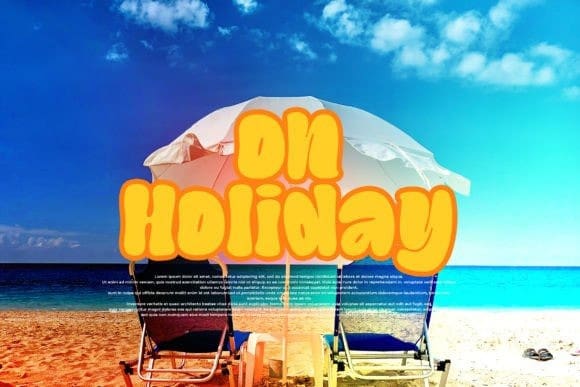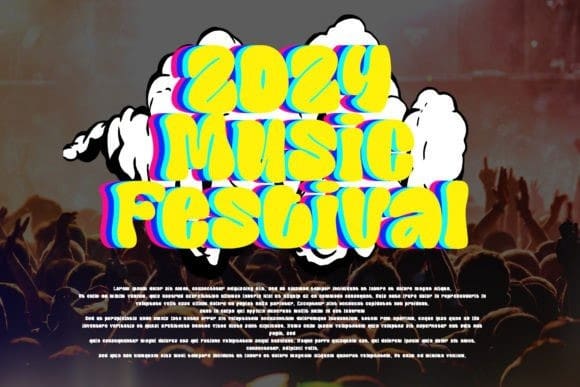
Santup Display Font
Santup Display Font is a display font that comes with a playful style. Suitable for posters, t-shirts, branding, social media, and so on.